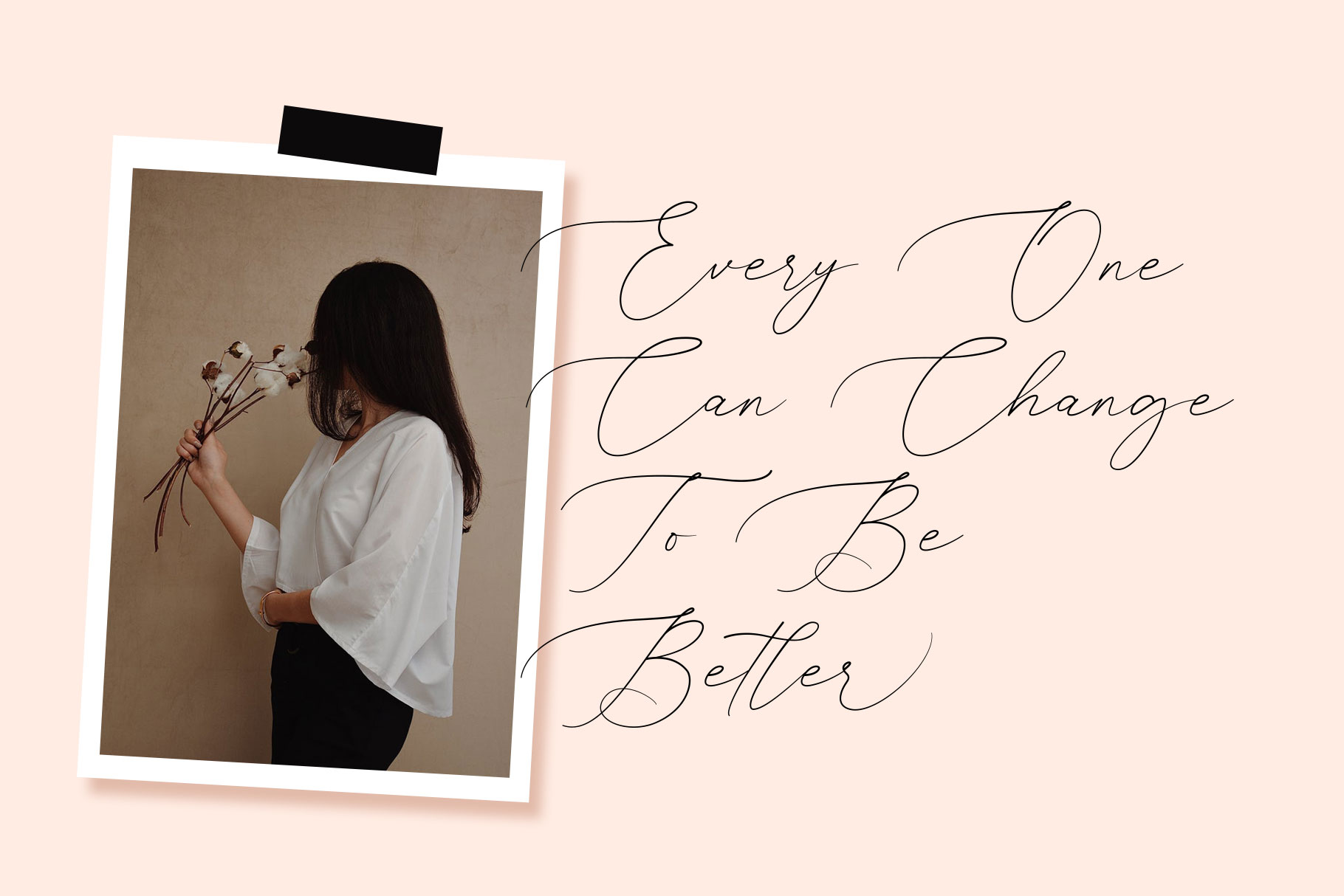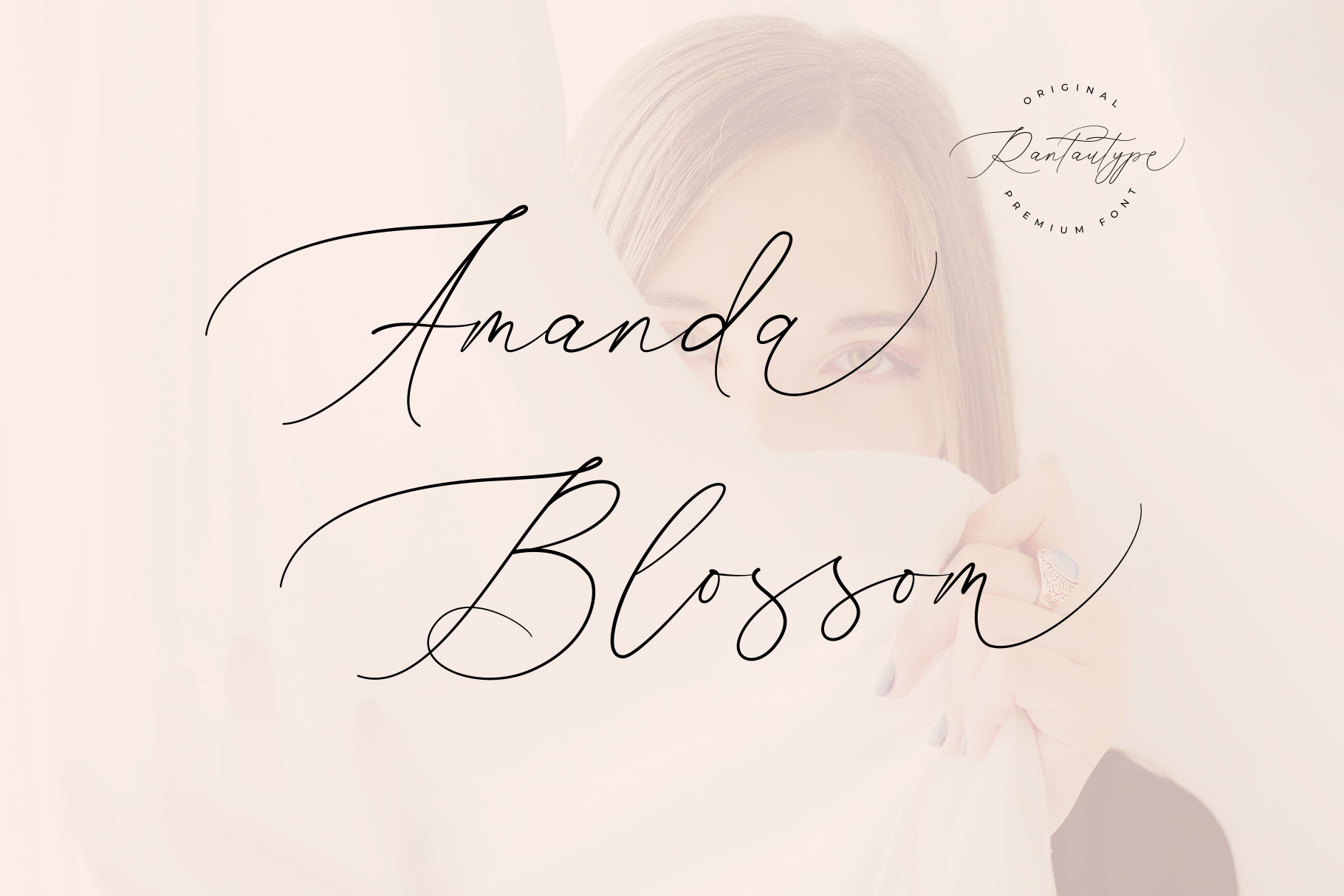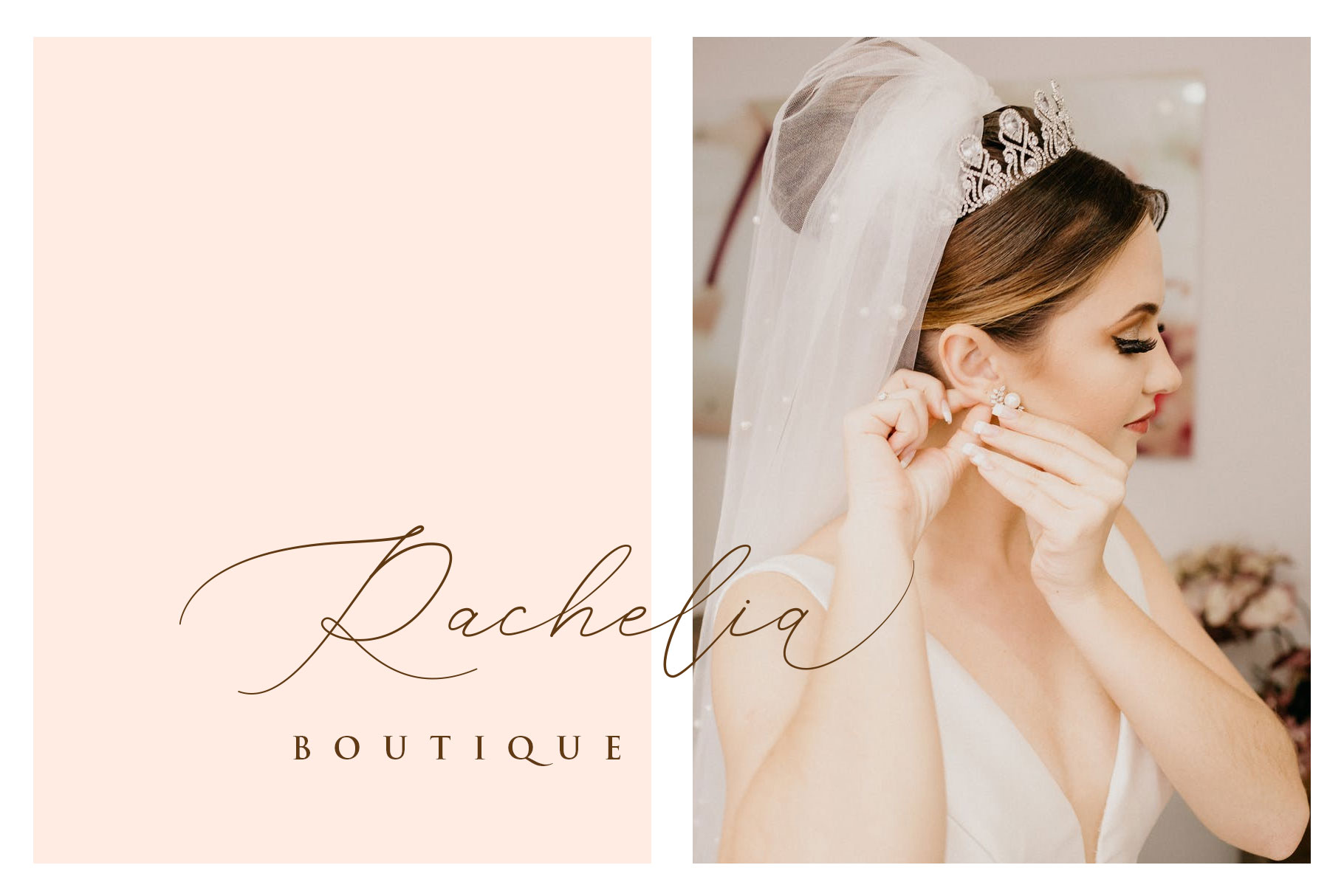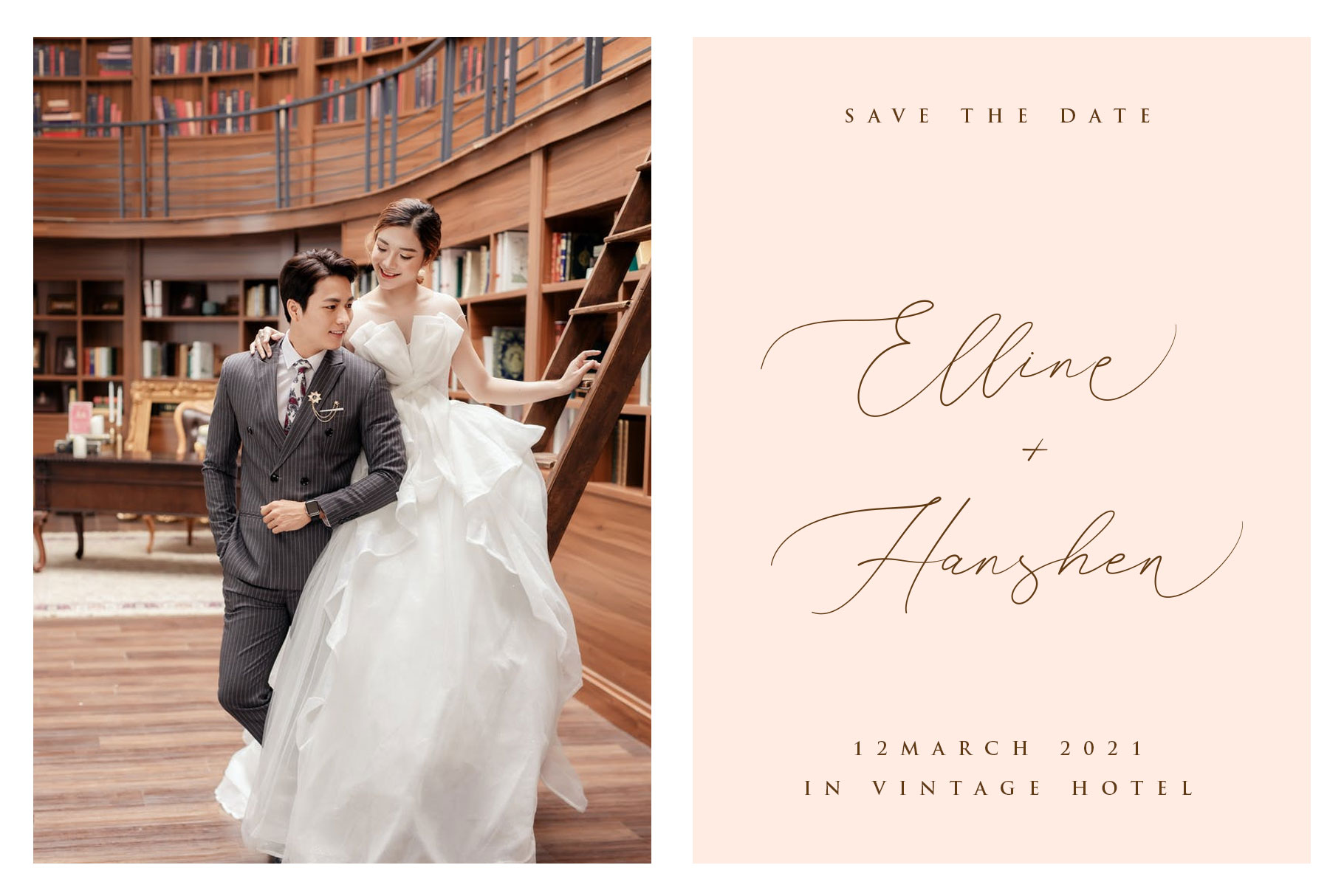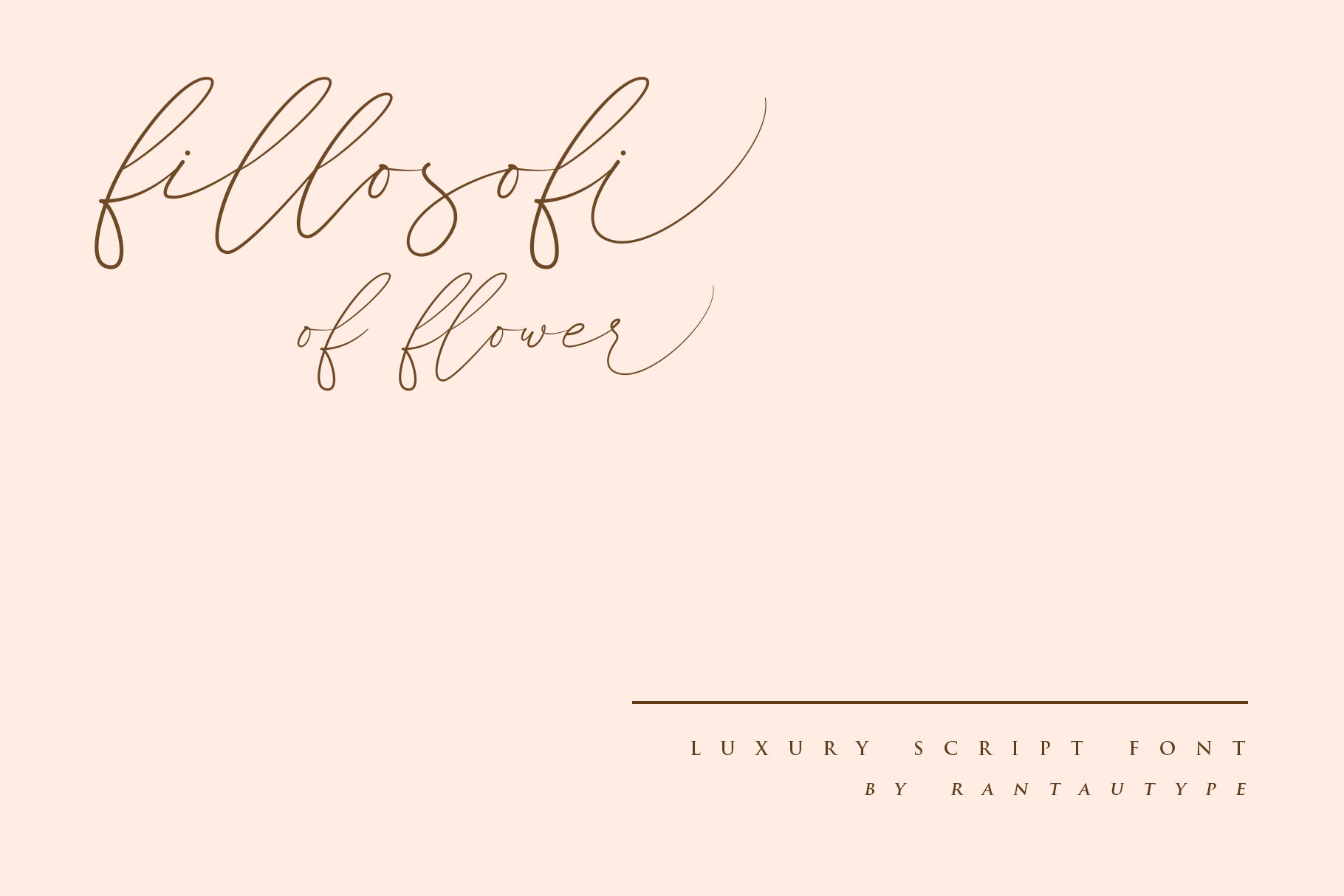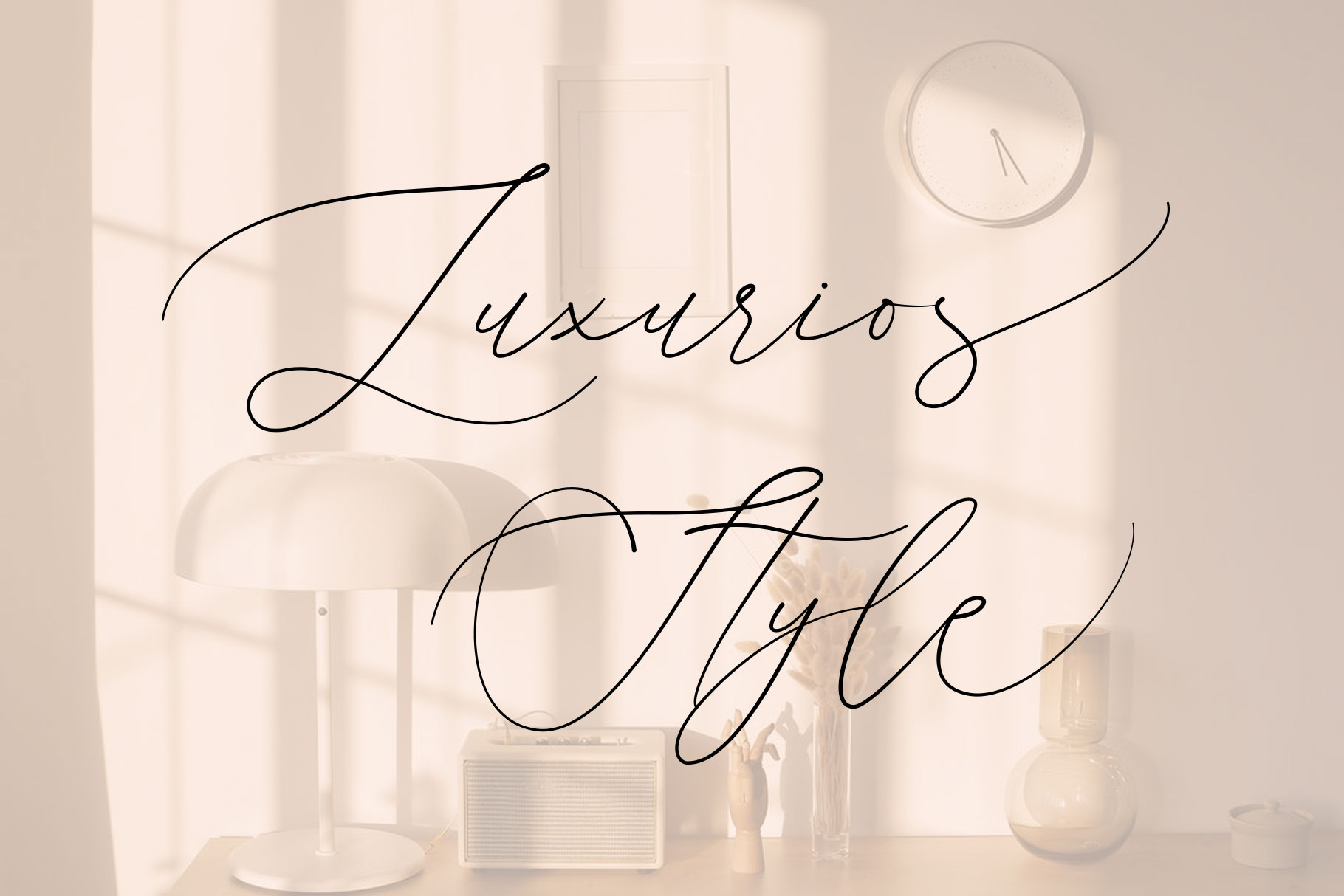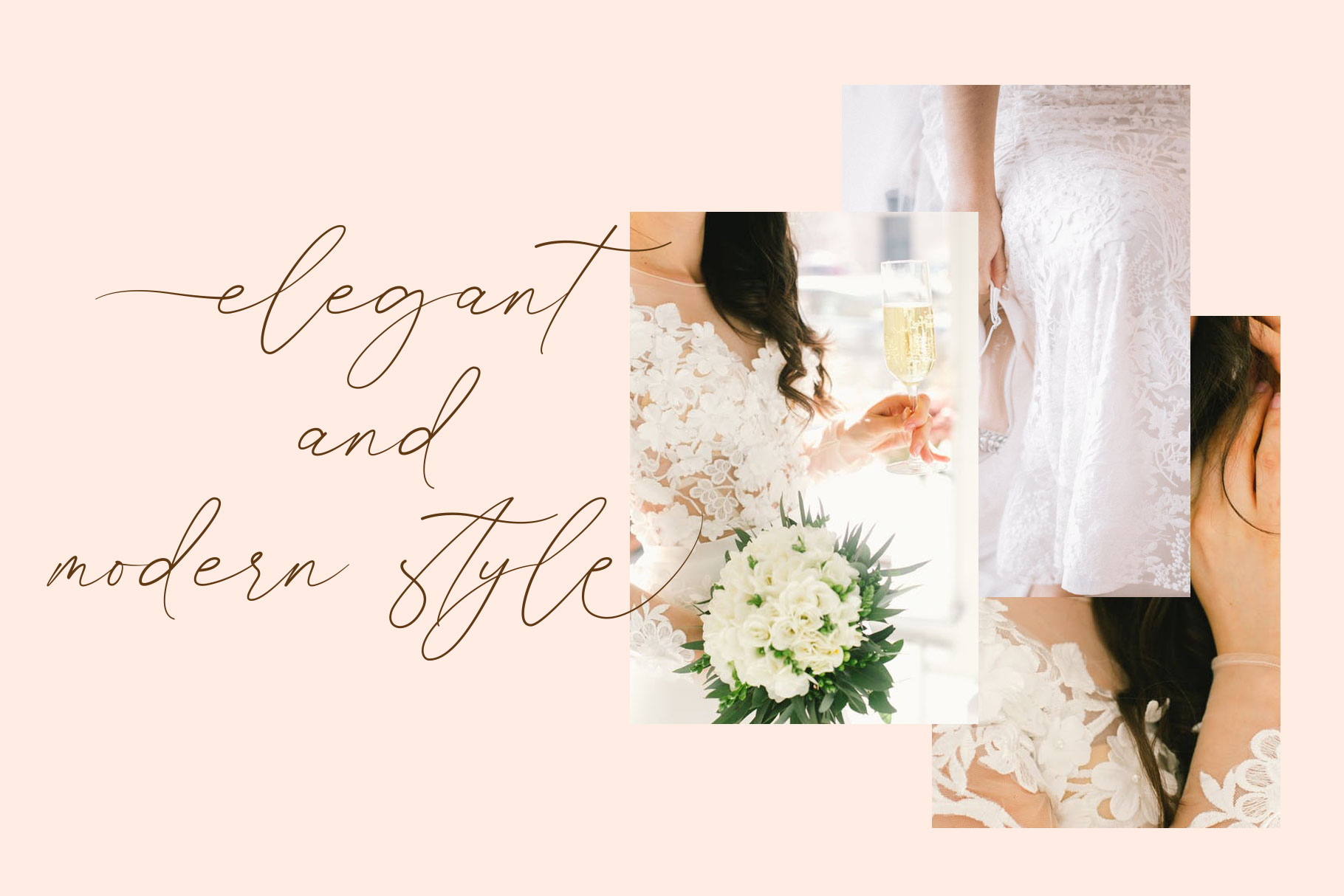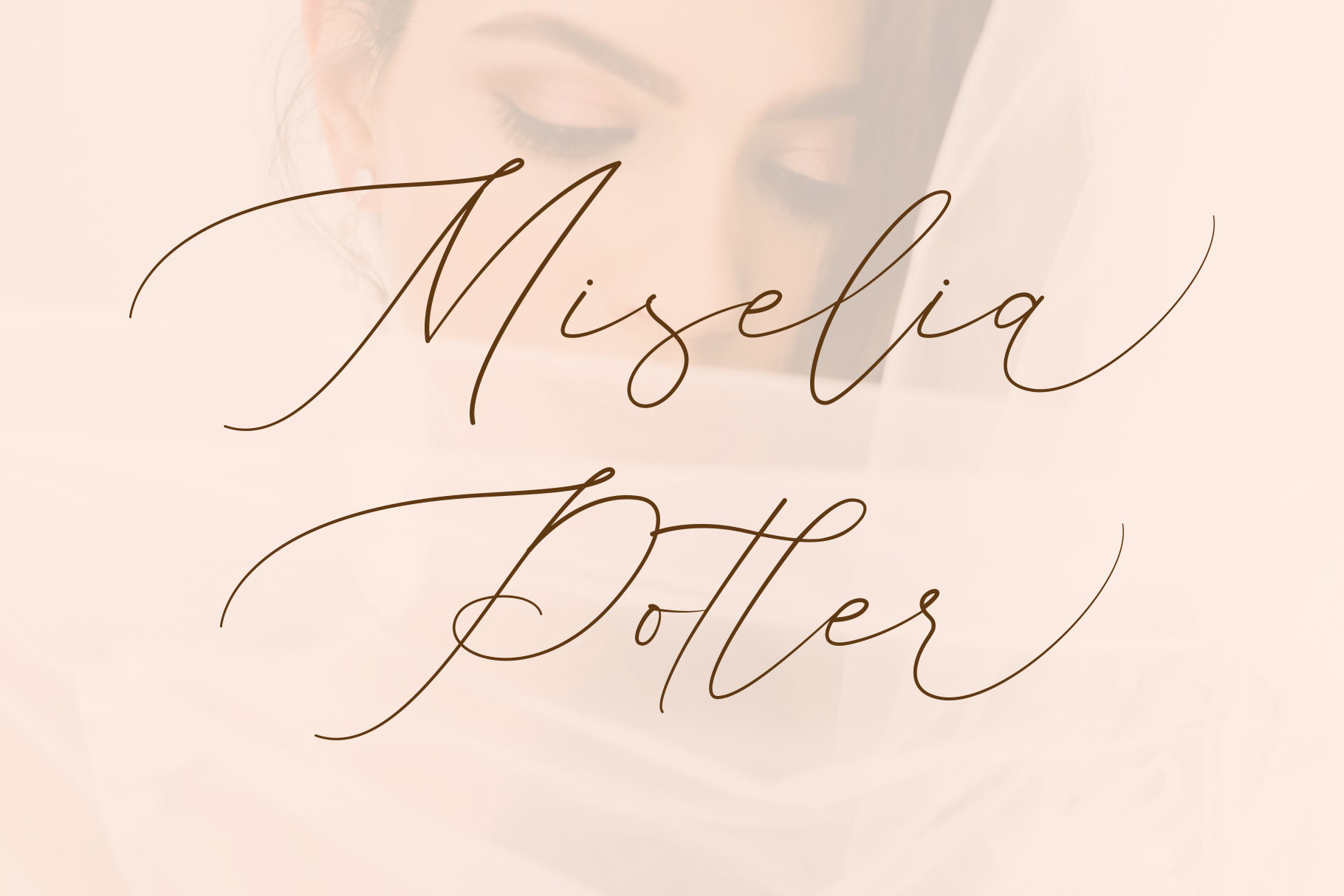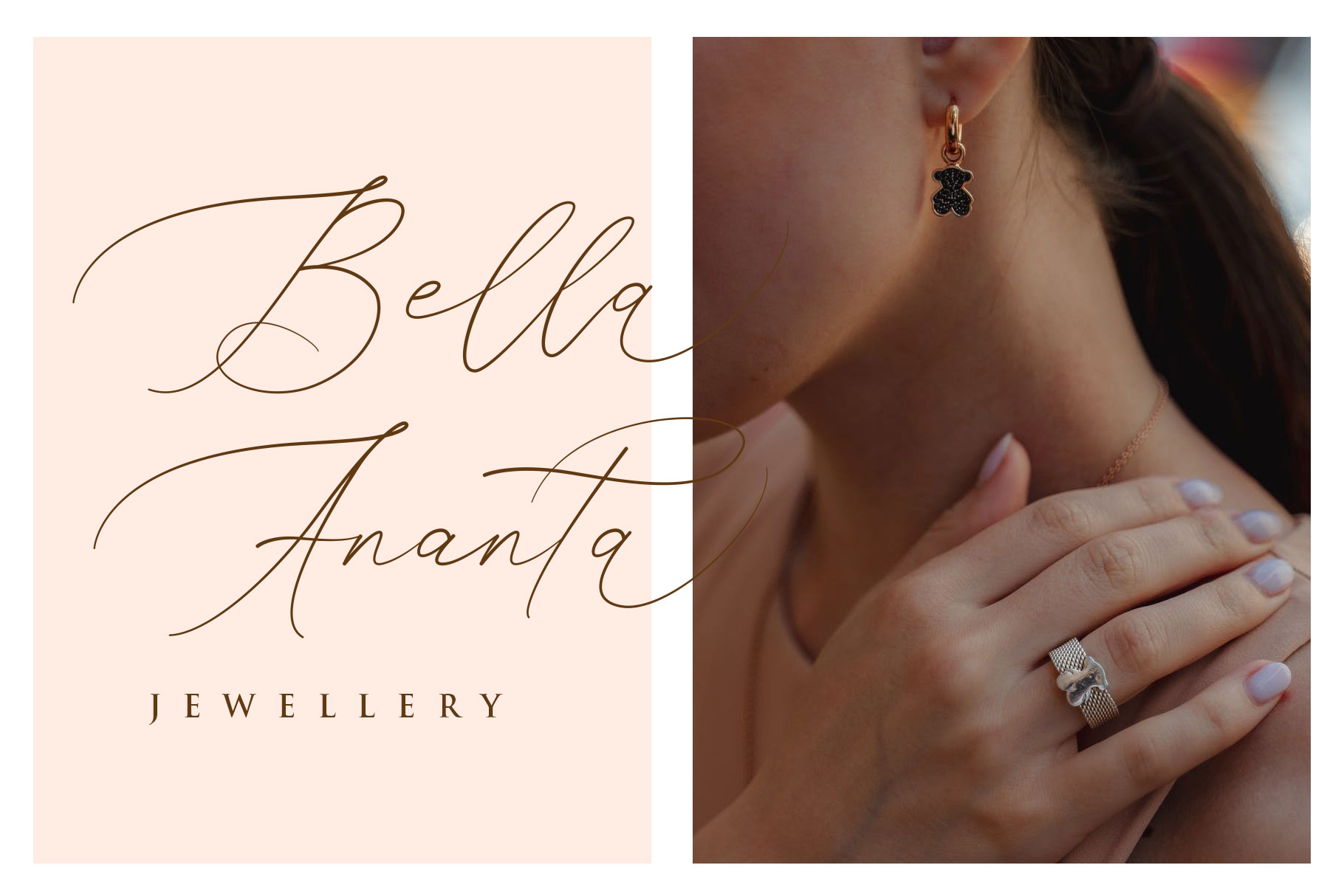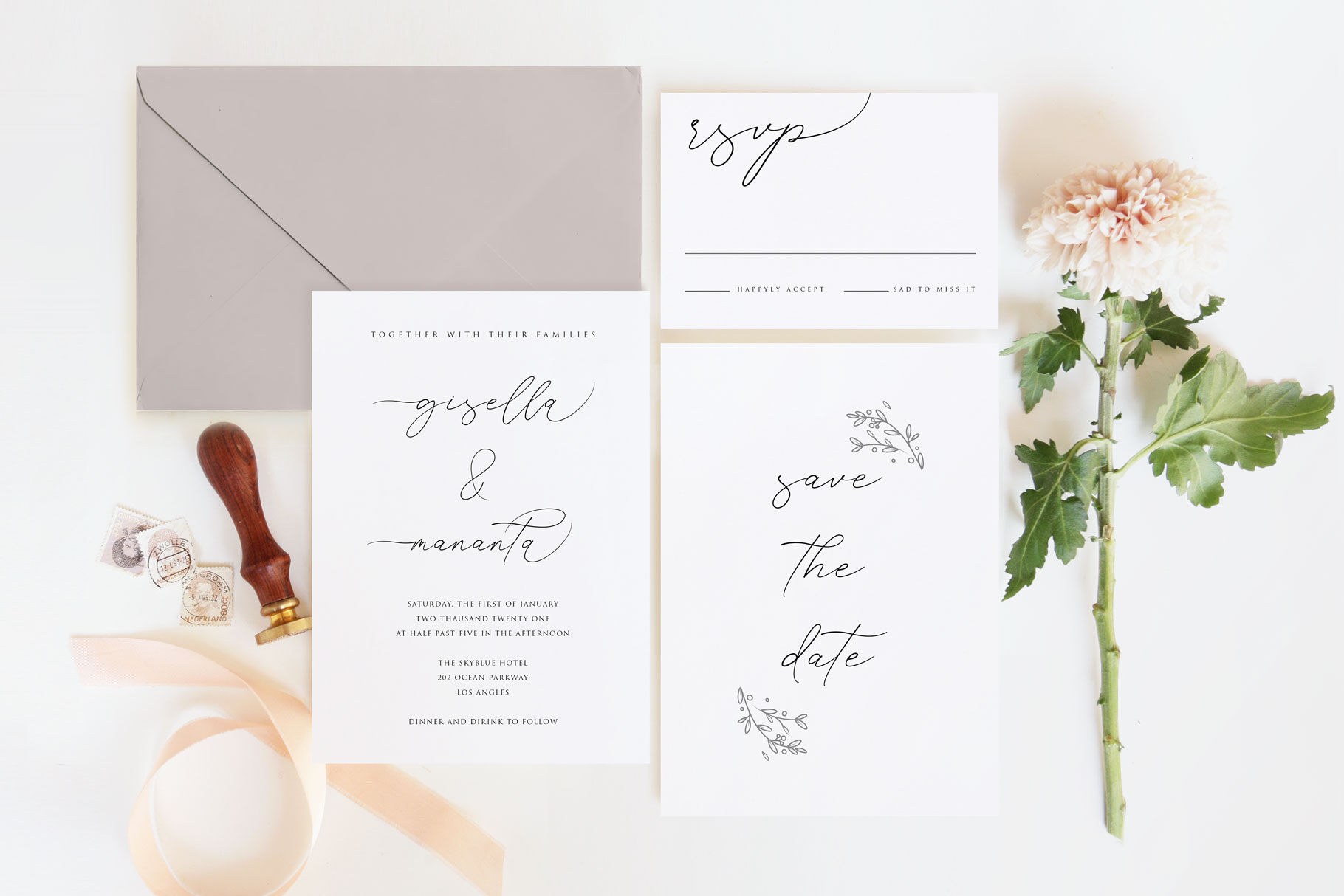
Femeanly Calligraphy Script Font
Femeanly is elegant style which can be interpreted professional. we keep this font looks elegant, luxury, premium, modern, readable, stylish, feminine, girly, catchy and easy to use. Femeanly is the great choice for watermark on photography, signature or signature logo design, quotes, album cover, magazine, business card and many other design project. Femeanly here to make your work to high level!!!
• Alternate with begin swash and end swash